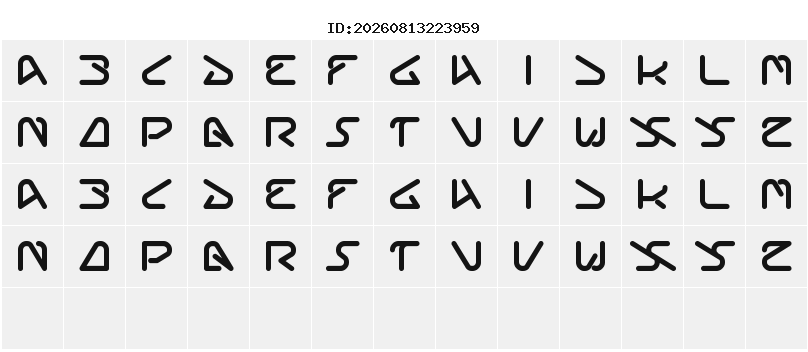
• Font Name: silverbend
About silverbend.ttf
silverbend.ttf is a modern, elegant sans-serif font designed for ultimate readability and visual harmony. Perfect for branding, headlines, web design, and print materials.